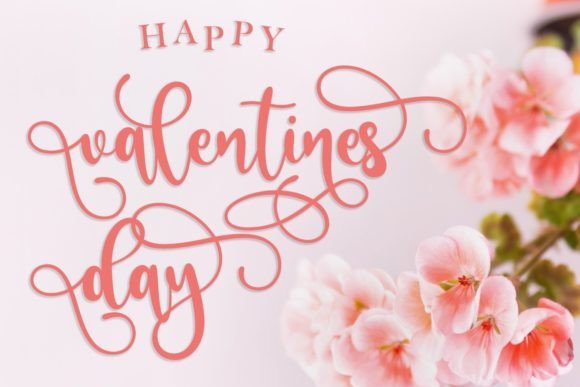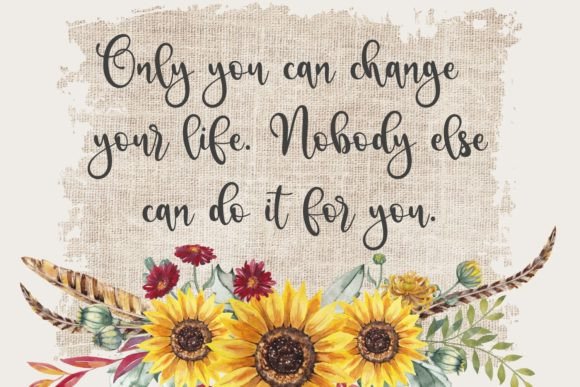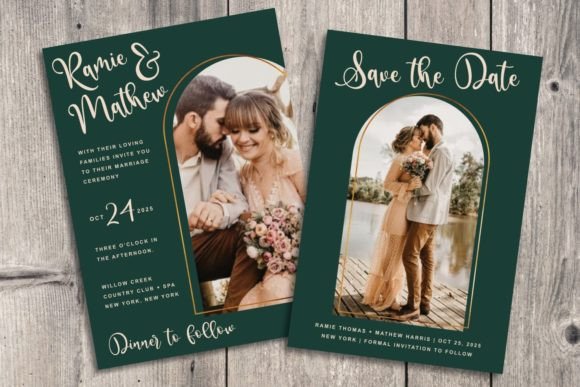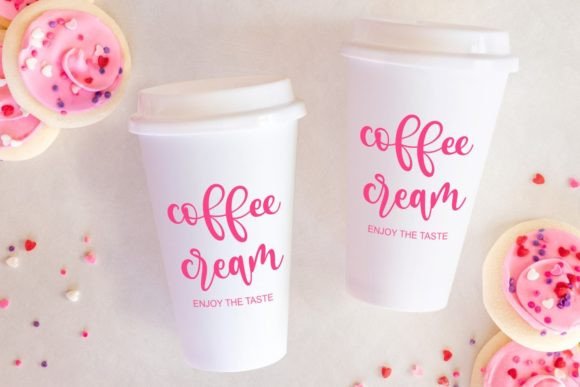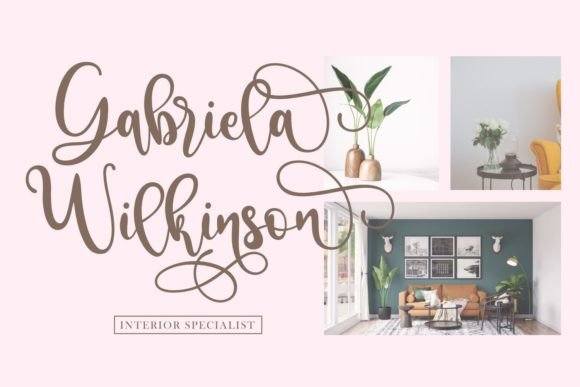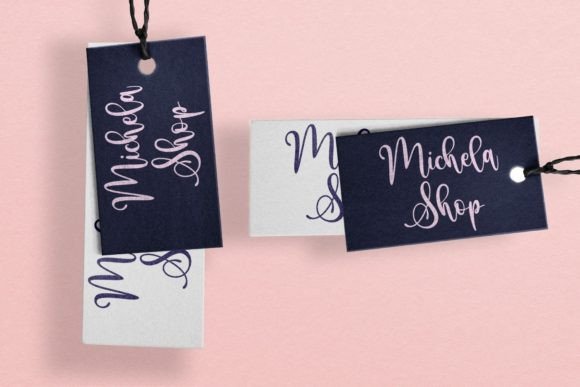
Barmukey Font: Elevate Your Designs with Modern Script Calligraphy
Are you a designer or crafter looking for a unique and versatile font to elevate your work? Look no further than Barmukey, a modern script calligraphy font that is perfect for a wide range of applications. In this article, we’ll explore the features and benefits of Barmukey, and show you how it can take your designs to the next level.
What is Barmukey Font?
Barmukey is a carefully crafted modern script calligraphy font that boasts an amazing typeface, created in a freestyle manner to give your work a personal touch. This font is designed to be highly versatile, making it suitable for various purposes, including logos, wedding invitations, titles, t-shirts, letterheads, signage, labels, news, posters, badges, and more.
Key Features of Barmukey Font
- PUA Encoded: Barmukey font is PUA (Private Use Area) encoded, which means you can easily access all the amazing glyphs and ligatures without any hassle. This feature allows you to unlock the full potential of the font and add a touch of elegance to your designs.
- Modern Script Calligraphy: Barmukey features a beautiful, modern script calligraphy style that adds a touch of sophistication to any design. The font’s flowing lines and curves create a sense of movement and fluidity, making it perfect for designs that require a high level of elegance.
- Freestyle Design: The Barmukey font was created in a freestyle manner, giving it a unique and personalized feel. This design approach ensures that your work stands out from the crowd and reflects your individual style.
- Highly Versatile: Barmukey is a highly versatile font that can be used for a wide range of applications, from logos and branding to wedding invitations and posters.
Benefits of Using Barmukey Font
So, why choose Barmukey font for your designs? Here are just a few benefits you can expect:
- Elegance and Sophistication: Barmukey adds a touch of elegance and sophistication to any design, making it perfect for high-end branding, wedding invitations, and other applications where luxury is key.
- Flexibility: The font’s versatility means you can use it for a wide range of applications, from digital designs to print materials.
- Unique and Personalized: The font’s freestyle design ensures that your work stands out from the crowd and reflects your individual style.
- Pair it with Other Fonts: Barmukey pairs well with a variety of fonts, so feel free to experiment with different combinations to find the perfect look for your design.
- Experiment with Colors: The font’s elegant design looks great in a range of colors, from bold and bright to soft and pastel.
| Font Name | Barmukey Font |
| Author | Sealoung |
Barmukey font is a powerful tool for designers and crafters looking to elevate their work with modern script calligraphy. With its elegant design, versatility, and ease of use, Barmukey is the perfect choice for a wide range of applications. Whether you’re creating logos, wedding invitations, or posters, Barmukey font is sure to take your designs to the next level.